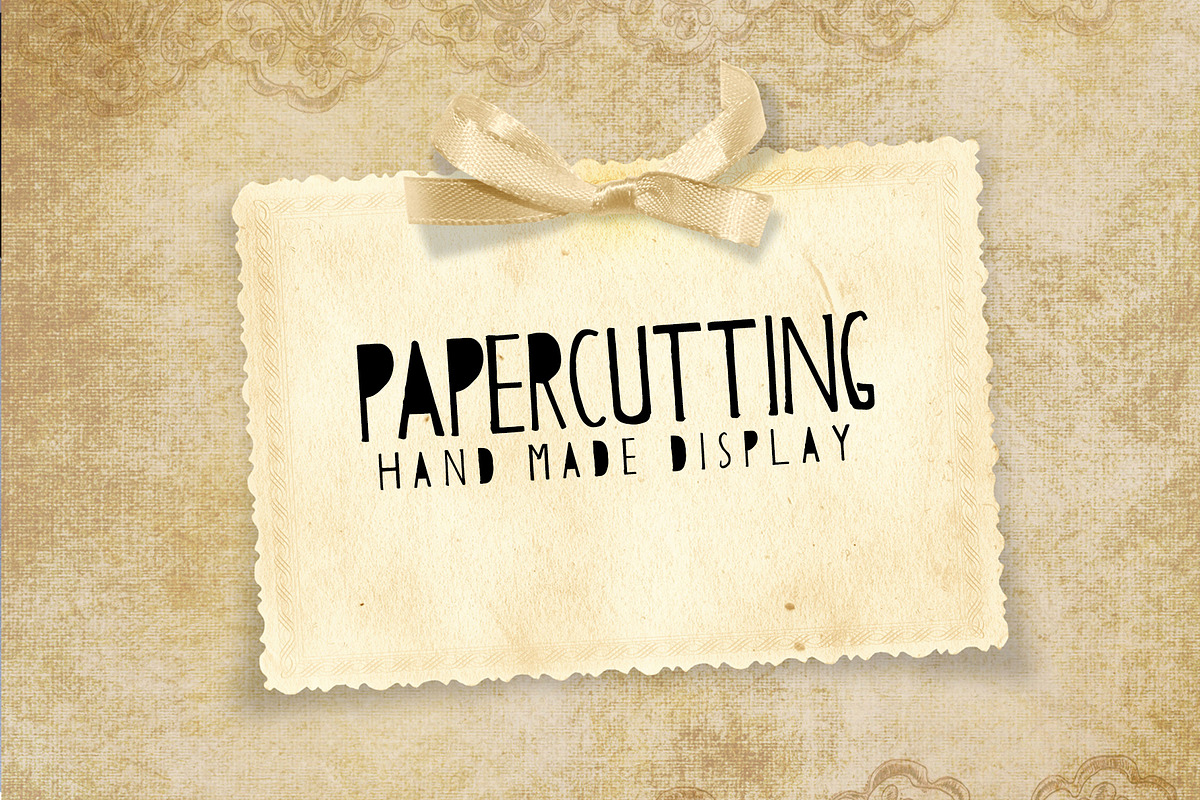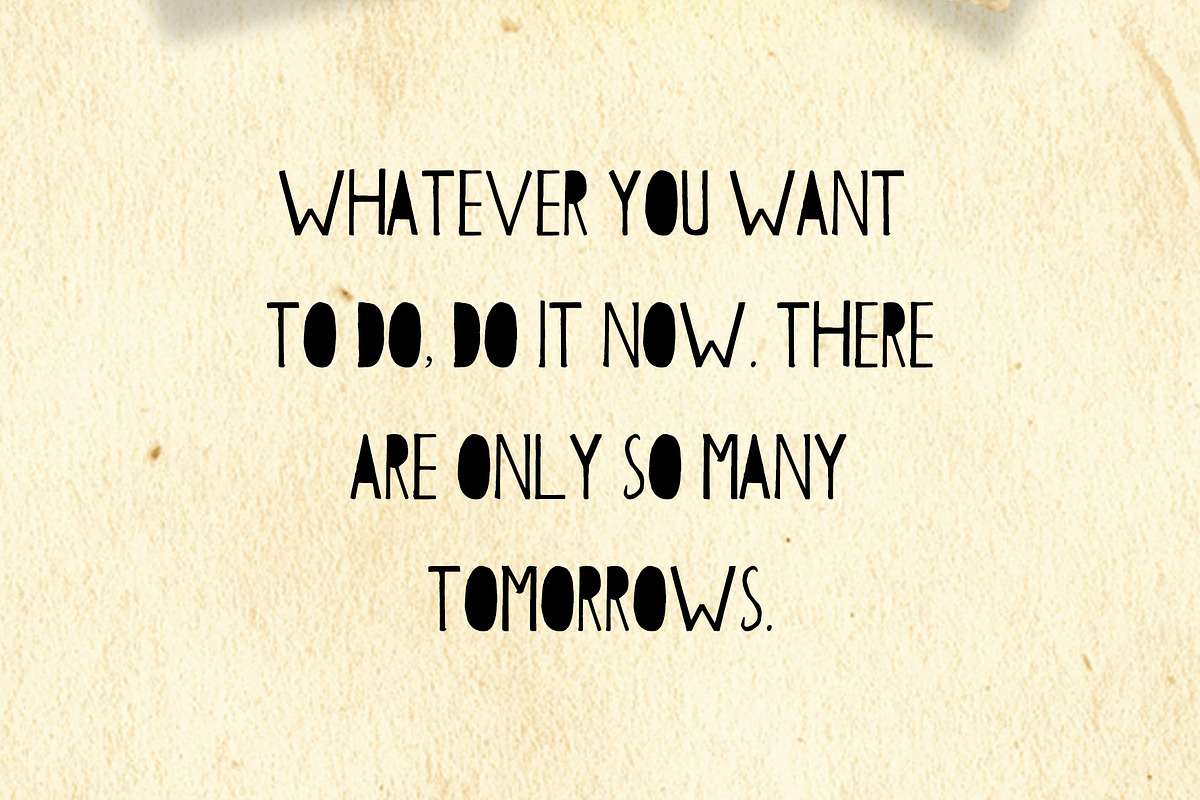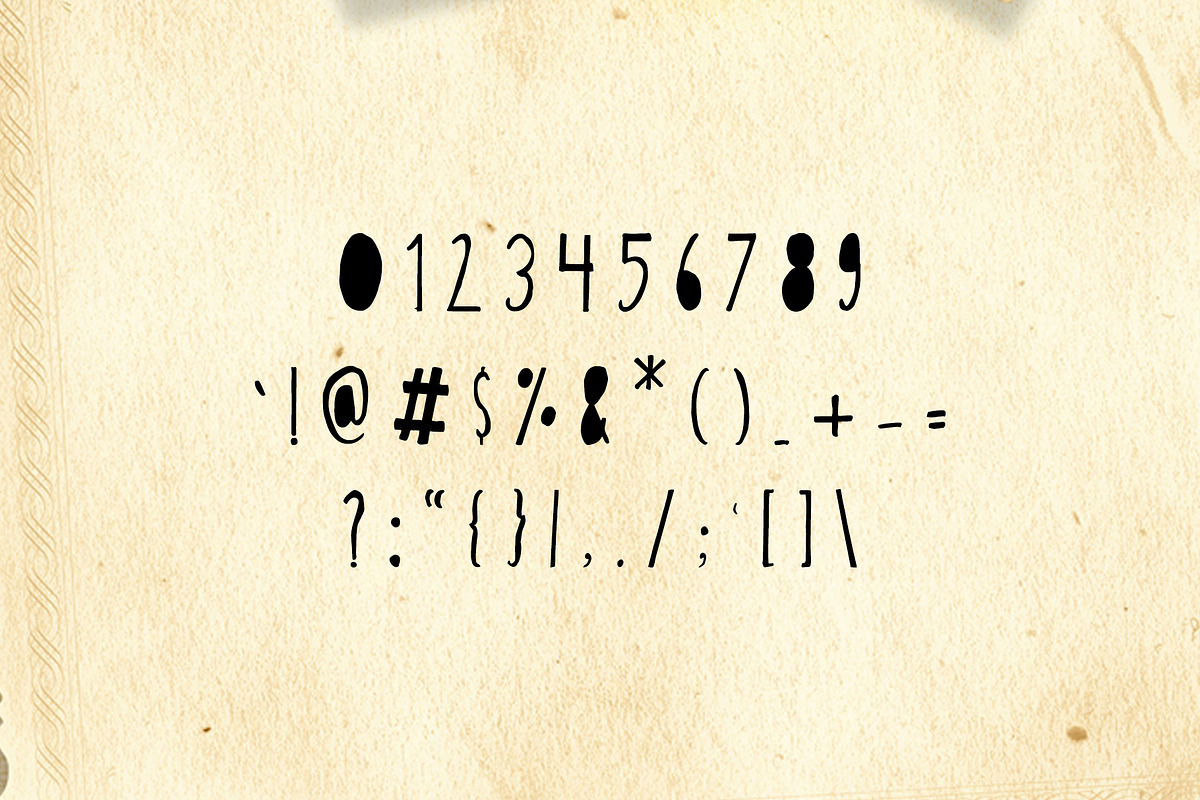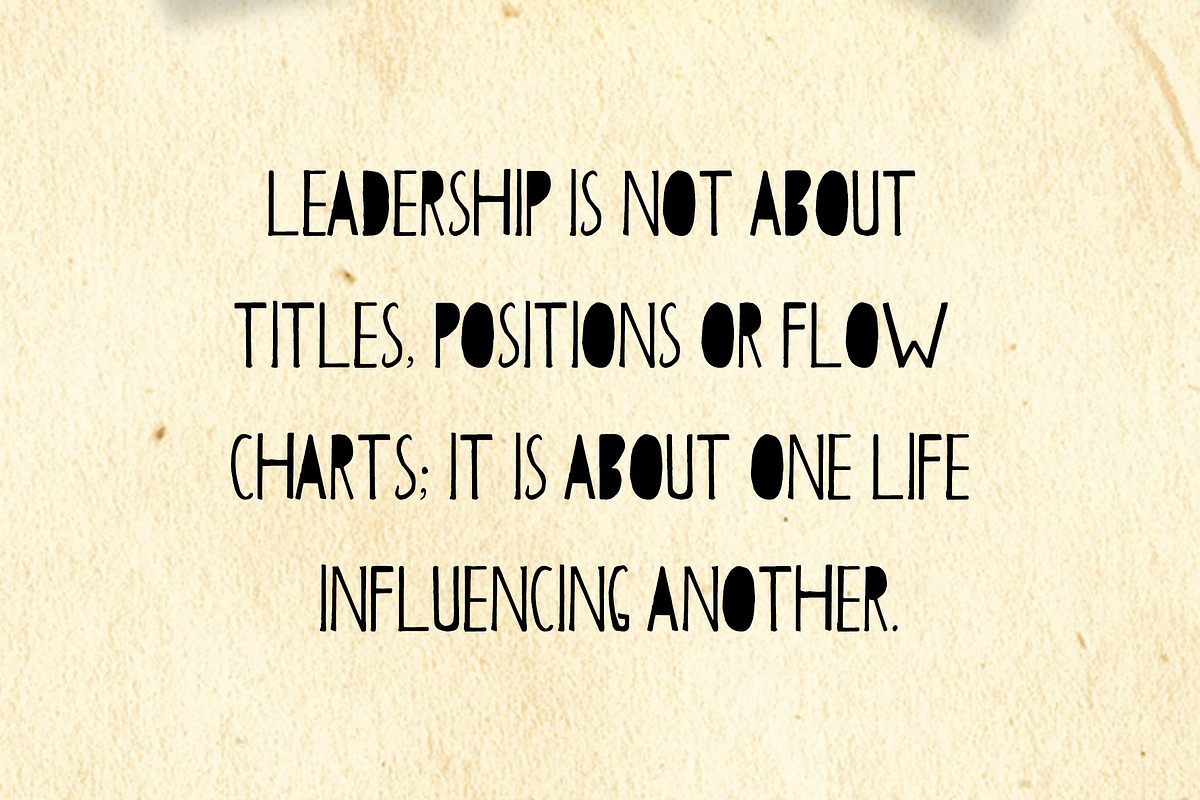
Papercutting Fonts
Papercutting Fonts by Creativetacos is a font selected for branding, posters, packaging, typography.
- Font Weight: Regular and Outline
- Extras: Uppercase Letters, Numbers, Punctuation & Symbols
- Papercutting Regular
- Papercutting Outline
Why Papercutting Fonts is worth a look
Papercutting Fonts by Creativetacos fits naturally into Branding, posters, packaging, typography.